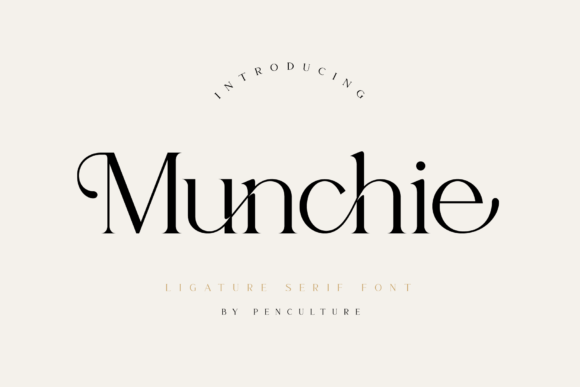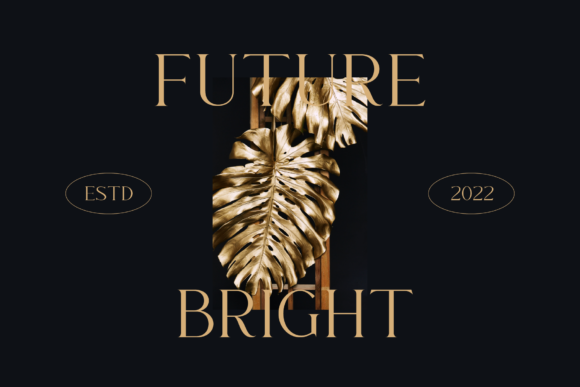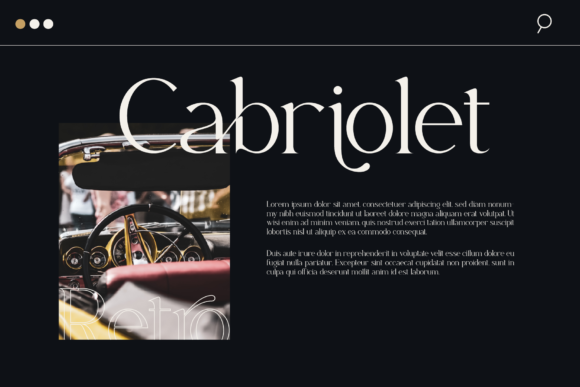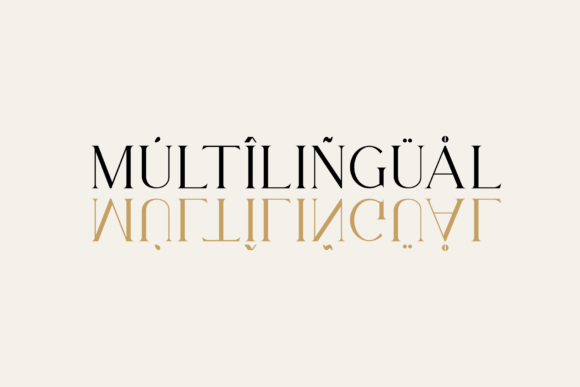
Munchie Font
Munchie is a modern serif font that has a ton of awesome and unique ligatures. Not only that, this font also comes with beautiful alternate which is very suitable and easy to use for various design projects. Some design projects that match this font include branding, logo design, posters, social media, web design and many more.